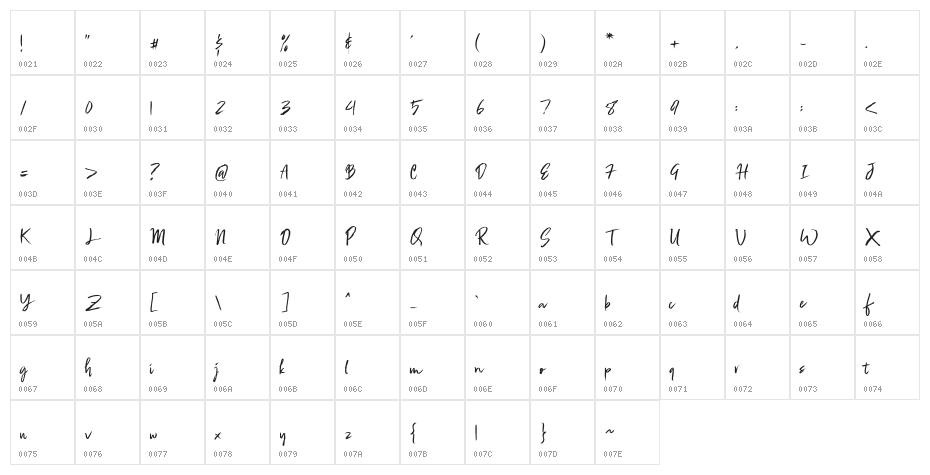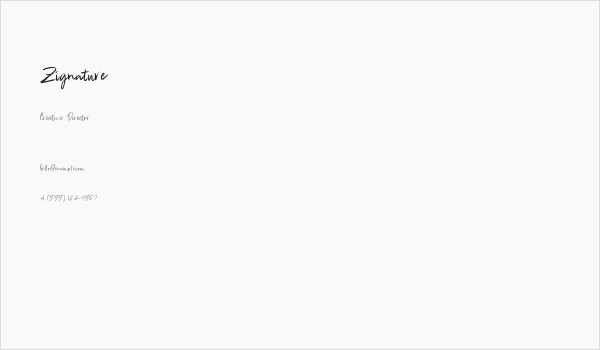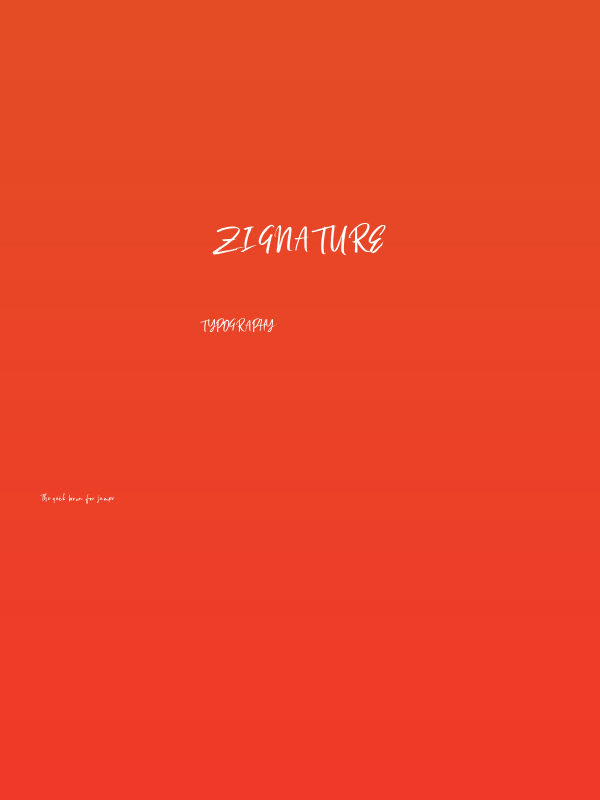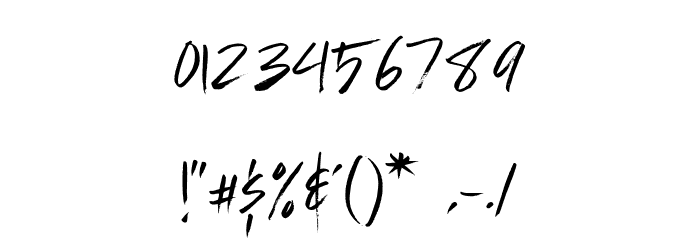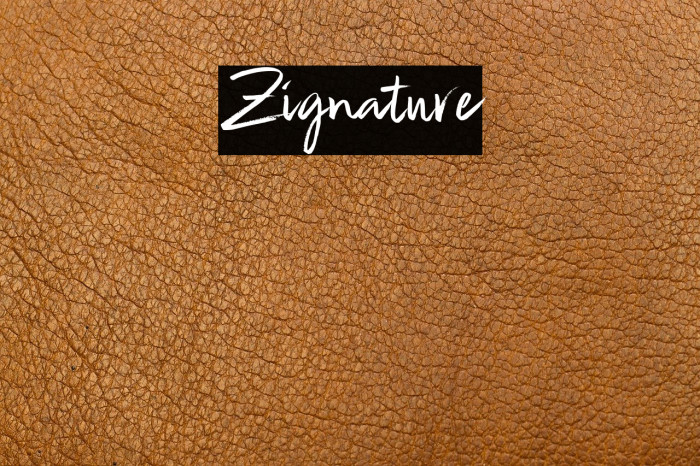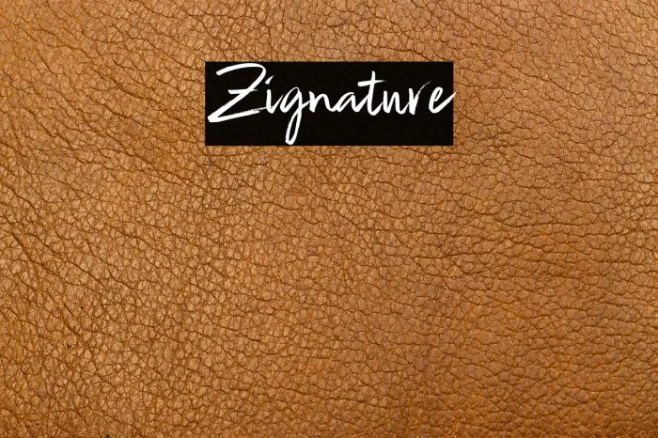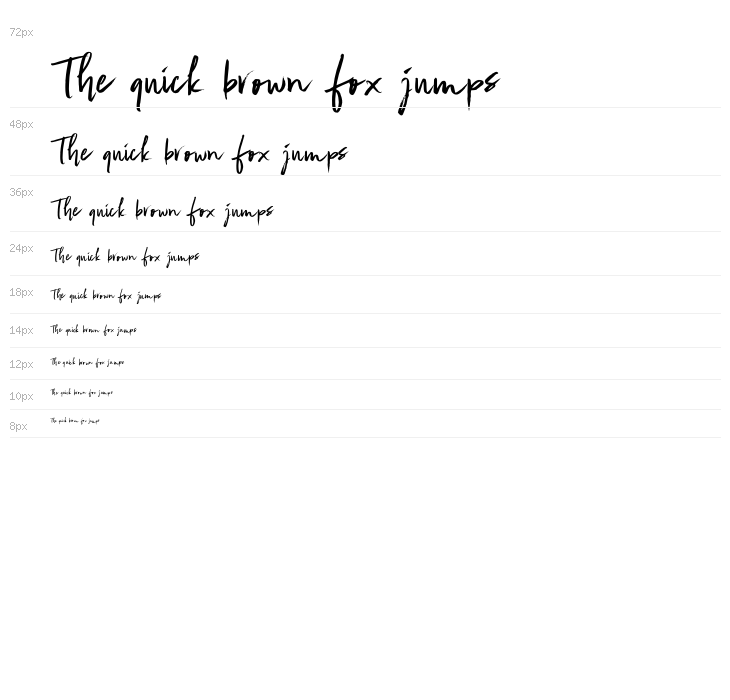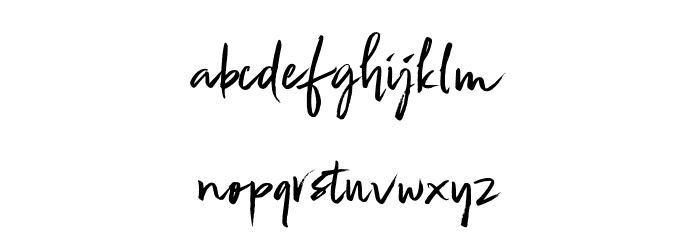
Zignature Font
Zignature Description
This font exudes a dynamic and expressive style, characterized by its fluid, handwritten appearance. The uppercase letters are bold and slightly slanted, giving a sense of movement and energy. The lowercase letters maintain a consistent flow, with elegant curves and varying stroke widths that add to its organic feel. Numbers and special characters are crafted with the same attention to detail, ensuring a cohesive look across all elements. The overall design is reminiscent of a personal signature, making it ideal for projects that require a personal touch or a creative flair.